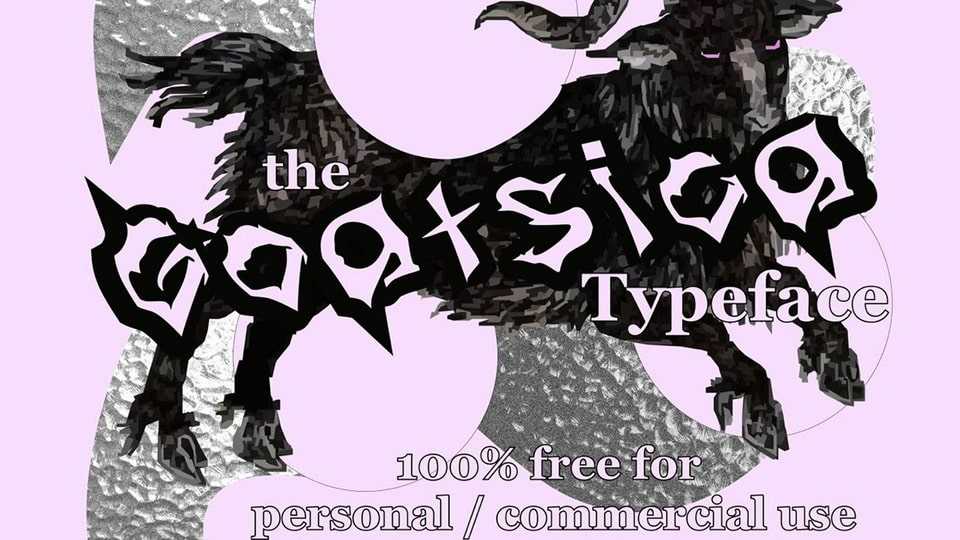
Download Goatsica font, an experimental and original accent font for display and printing! Goatsica is a humorous combination of Gothic and Helvetica.